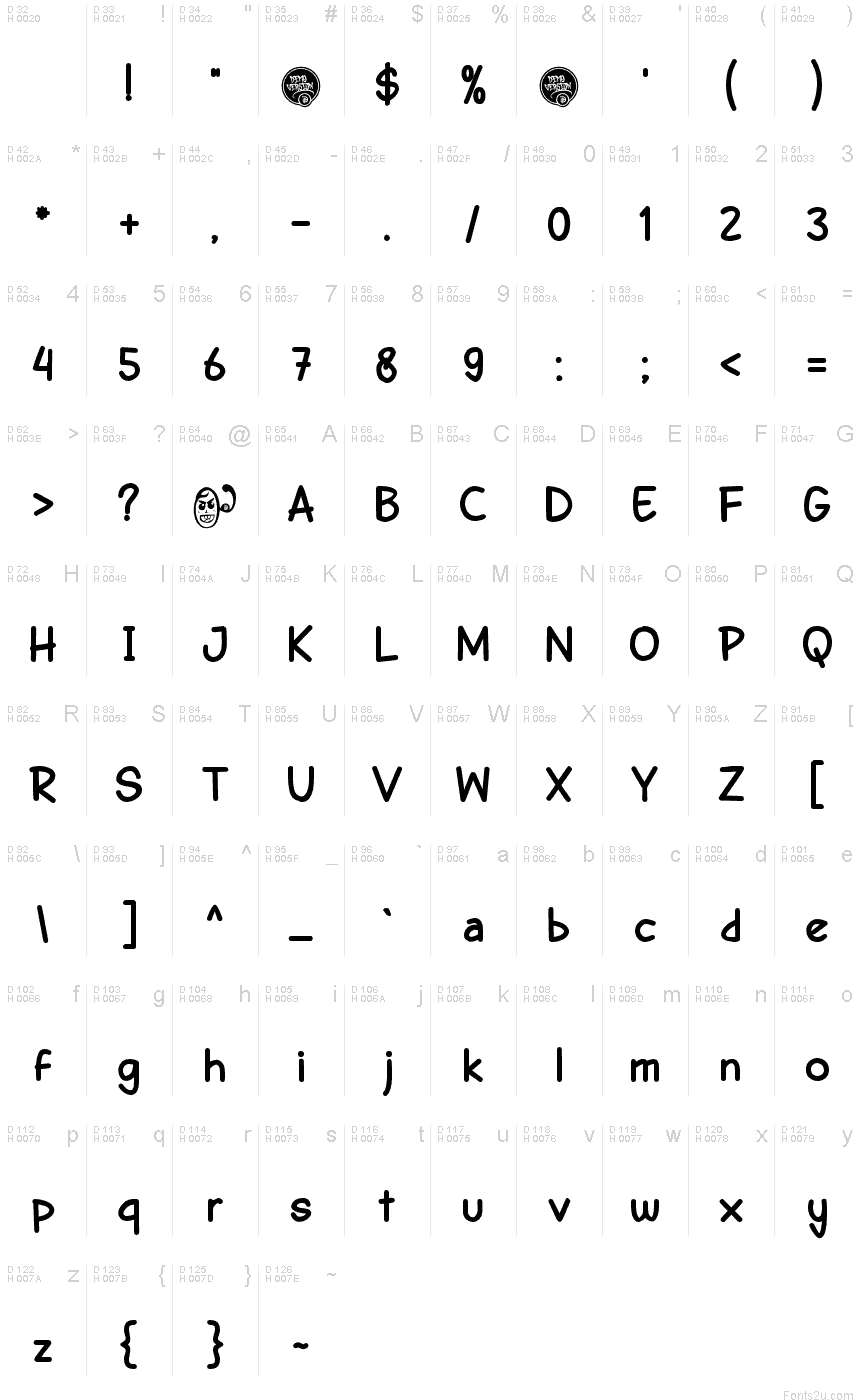
DHF Semangat 2012 Bold by Dexsar Harry Anugrah is a free comic display font with loose, hand-drawn forms. Rounded strokes and a loose baseline keep every word moving.
Small independent snack brands and local family cafes could use its broad, friendly shapes across colorful packaging and hand-lettered menu boards aimed squarely at families with young children. The irregular proportions also suit children's publishing, especially book covers and activity pages built around lively character illustration and casual, marker-like artwork. For lighthearted comics and animated entertainment, the changing letter widths echo expressive faces, quick jokes, and the lively pace of fast-moving scenes.
The special font for Indonesian youth to never stop working.